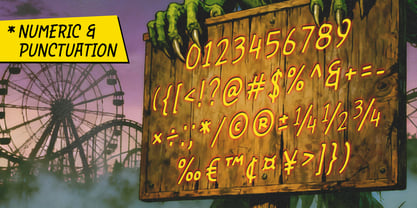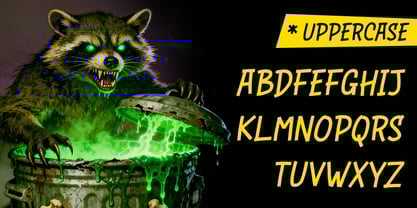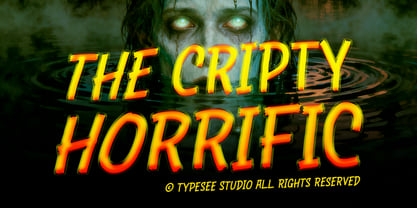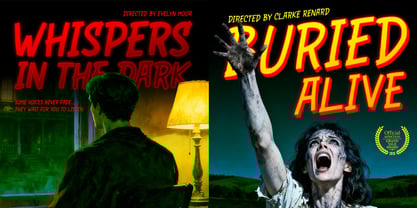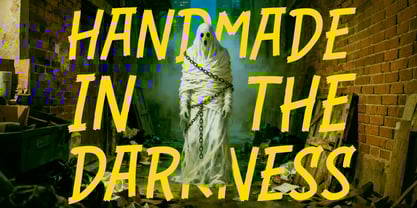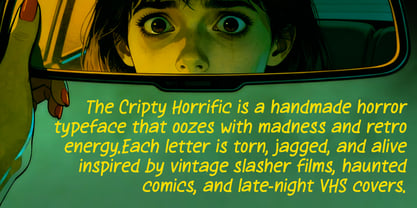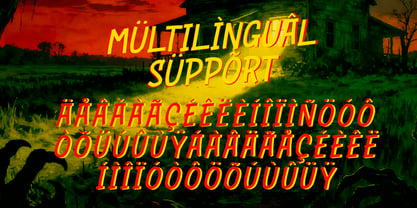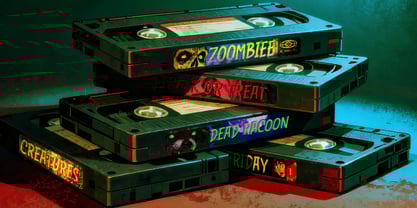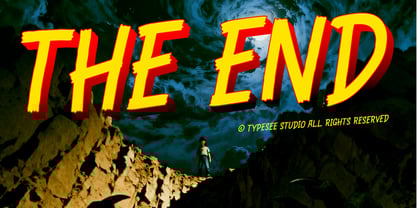
The Cripty Horrific
von Typesee
Die Schriftfamilie The Cripty Horrific wurde von Rizka Prayuda, Muhammad Mirza Azhmi entworfen und von Typesee veröffentlicht. The Cripty Horrific enthält 1 Stile. Mehr über diese Familie
The Cripty Horrific is a terrifying uppercase display font built for horror storytelling. Each letter drips with tension rough, uneven, and alive with radioactive glow. Designed for Halloween campaigns, monster games, zombie movies, and ghostly visuals, this font captures the essence of chaos and fear. It brings a retro horror aesthetic with modern sharpness, making your titles and designs scream with intensity and cinematic dread. Whether for posters, trailers, or apparel graphics, this typeface embodies the dark thrill of the supernatural.
Designer: Rizka Prayuda, Muhammad Mirza Azhmi
Aktuelle Foundry: Typesee
Typesee is an independent type foundry based in Medan, North Sumatera Indonesia and was established in 2022. We are produce various kinds of experimental and local wisdom based fonts. We have a passion for graphic design and a science of typography and there is no limit in art, nothing is bad or perfect, it depends on our point of view in seeing it.